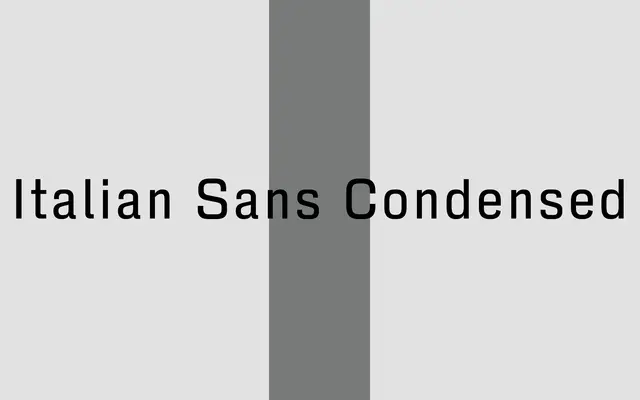
Italian Sans Condensed
A condensed industrial sans drawn from archival lettering specimens held at the Central Lettering Archive at Central Saint Martins, with proportional spacing that mimics a monospaced rhythm.
Designed as a companion to the wider Italian Sans, this condensed cut takes its cues from historical specimens in the Central Lettering Archive at Central Saint Martins, London. Characters are proportionally spaced but carry a monospaced visual cadence, giving display and editorial settings an unusual mechanical regularity. Five weights run from Light to Bold with no italics, suited to tight-column work, posters and branding that calls for an industrial edge.
An industrial-style condensed sans-serif drawn from historical lettering specimens, with a distinctive pseudo-monospaced rhythm achieved through proportional spacing.